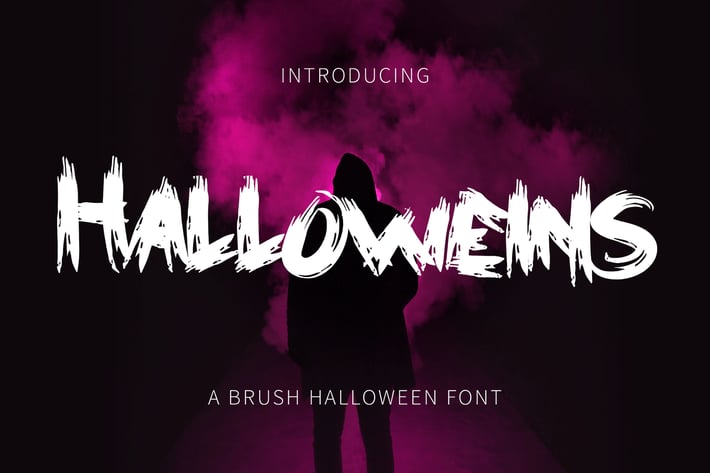
Halloweins - Brush Font
Hello! We are happy to introduce our new font "Halloweins" is a Spooky brush font, this font looks spooky, horror, catchy and easy to use.
Halloweins Font is the best choice for your professional design projects, including : logo, poster design, t-shirt, headline, flyer, cd cover album, quotes, business card, branding, magazines, social media, advertisements, product designs, or something that need playful or cartoon looks.
- Basic Latin A-Z
- Numbers
- Symbols